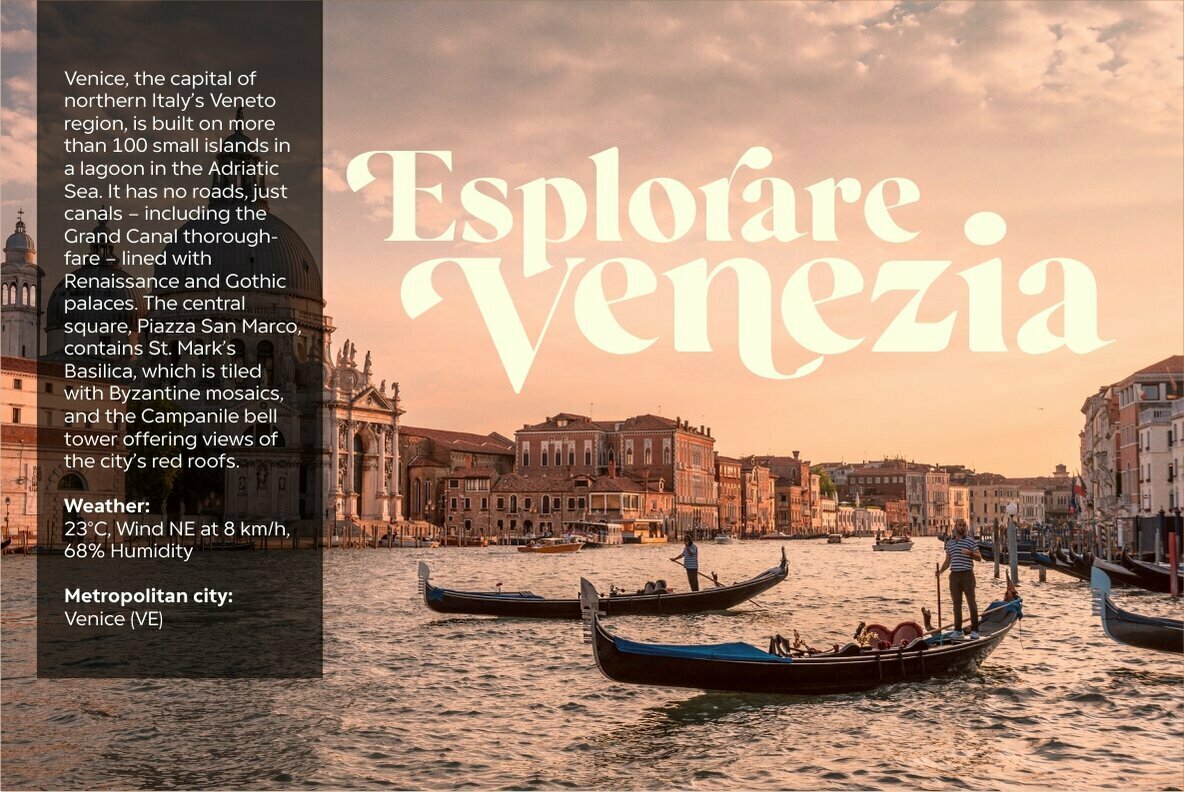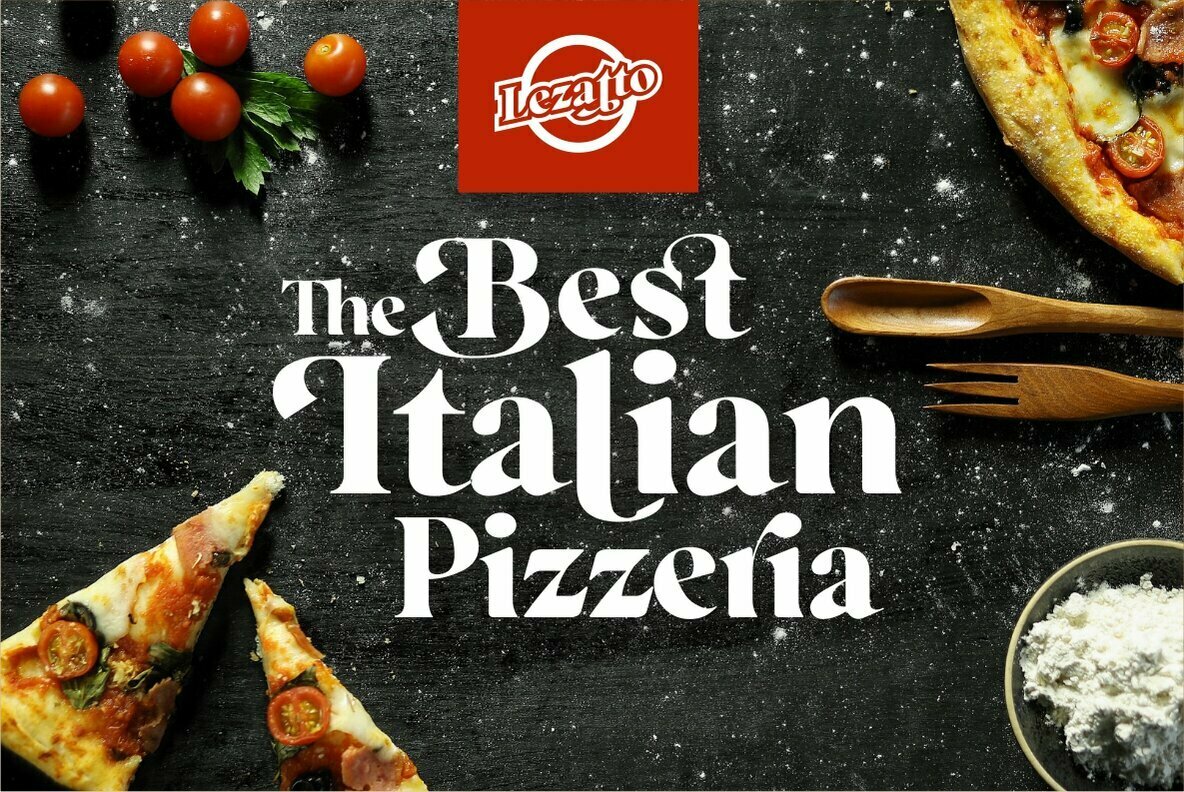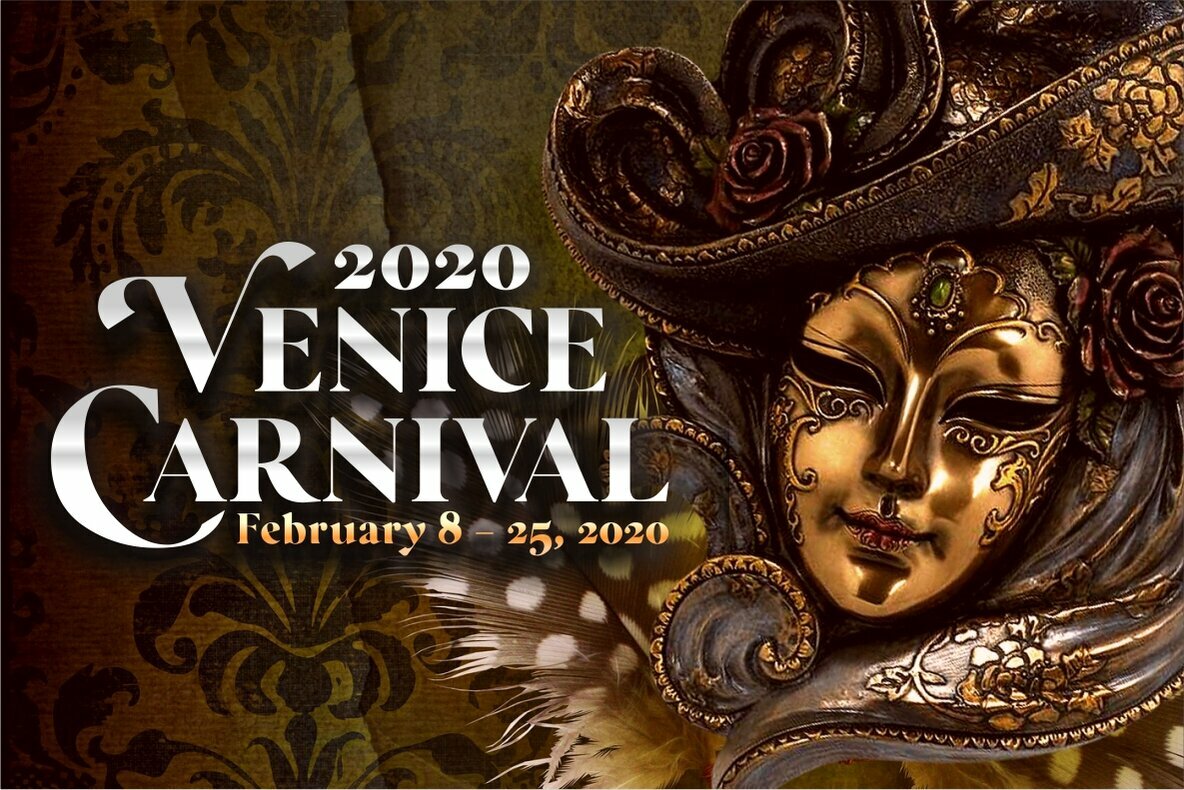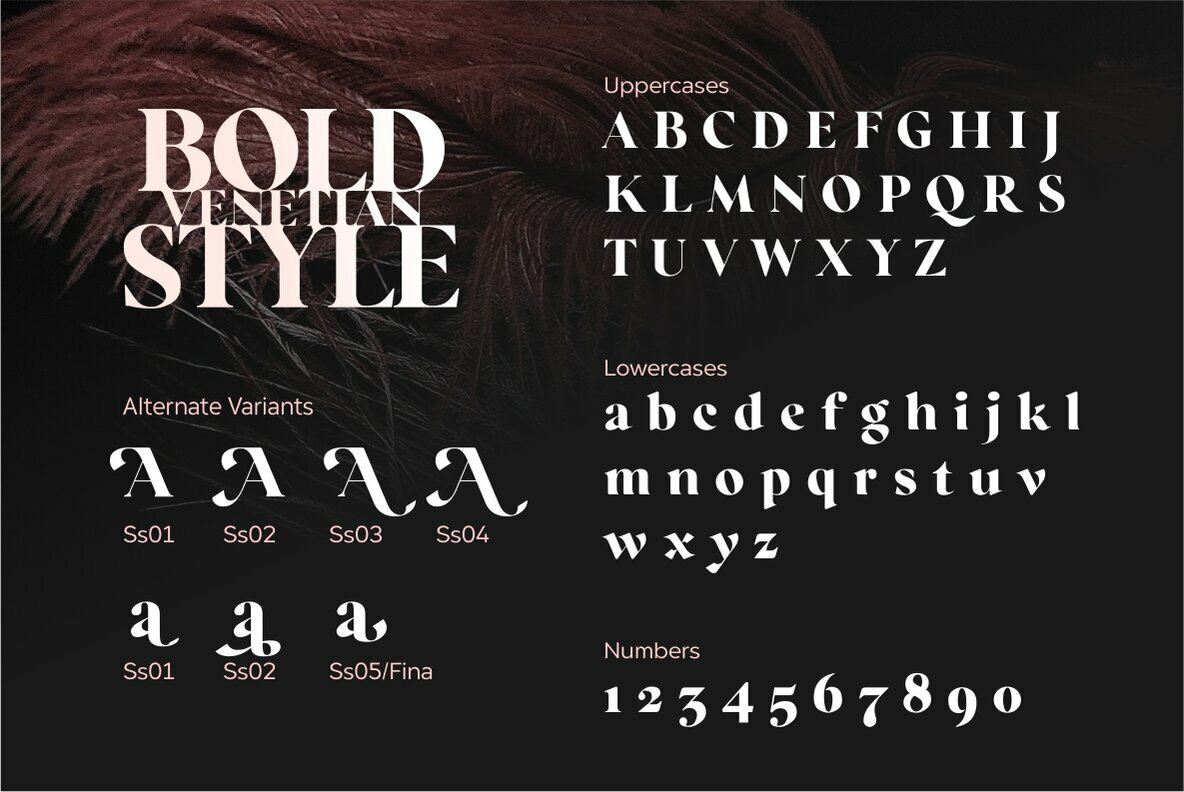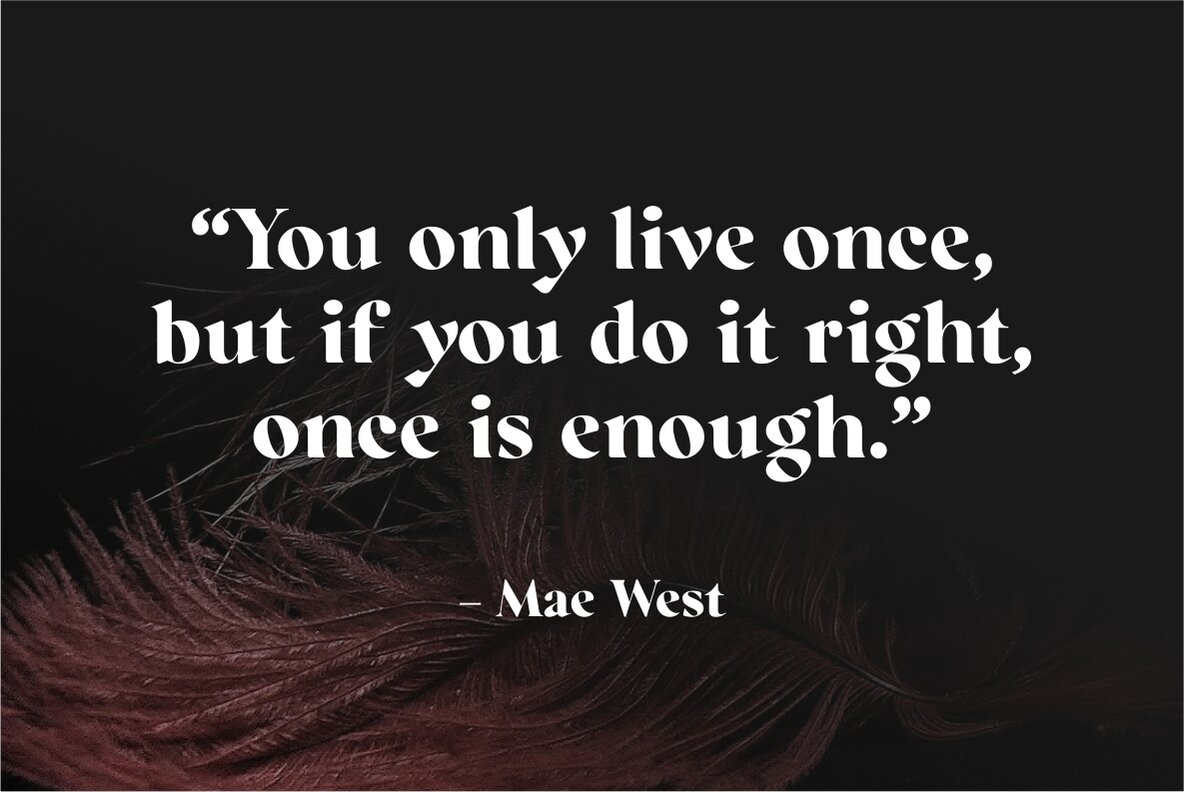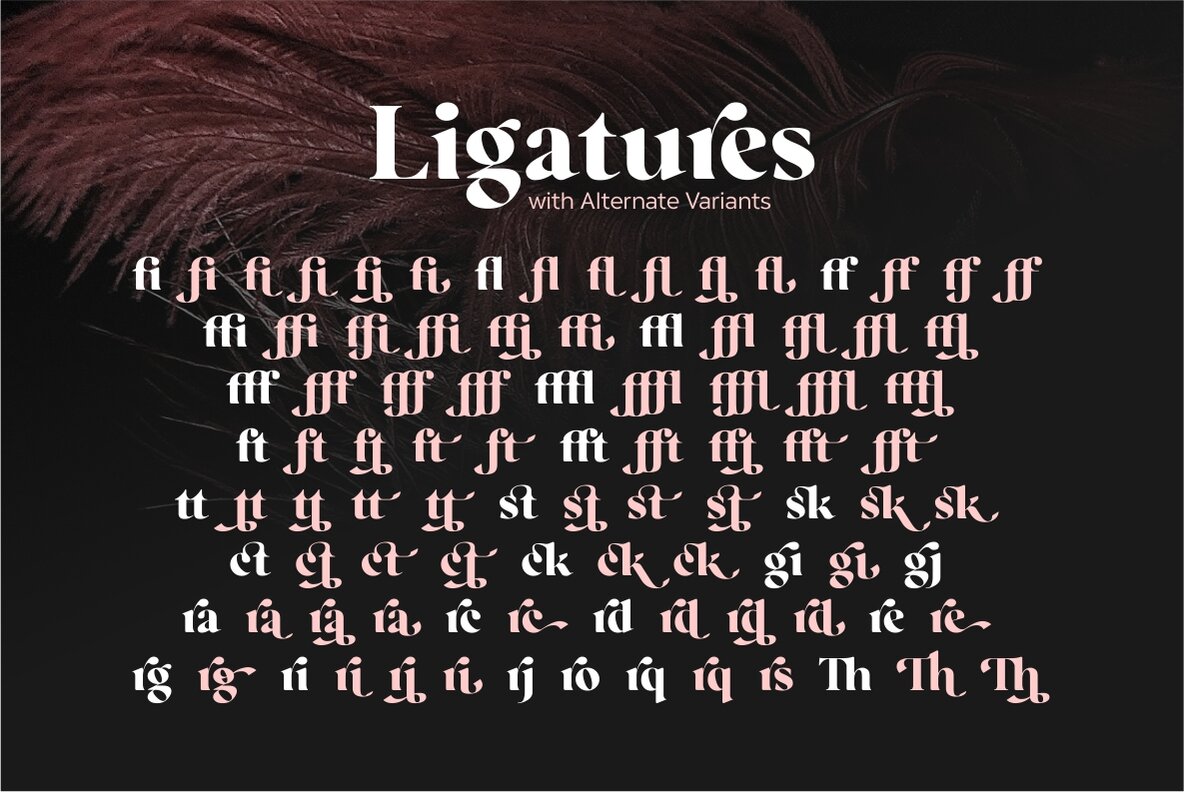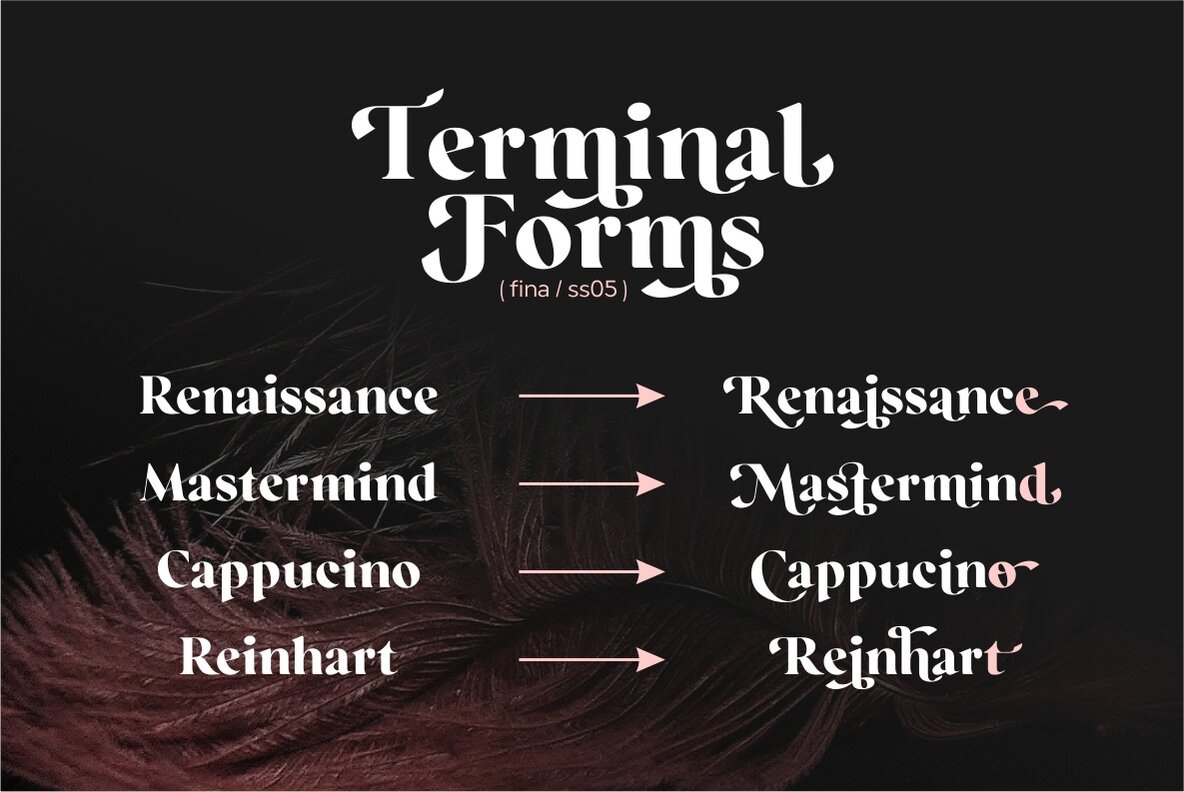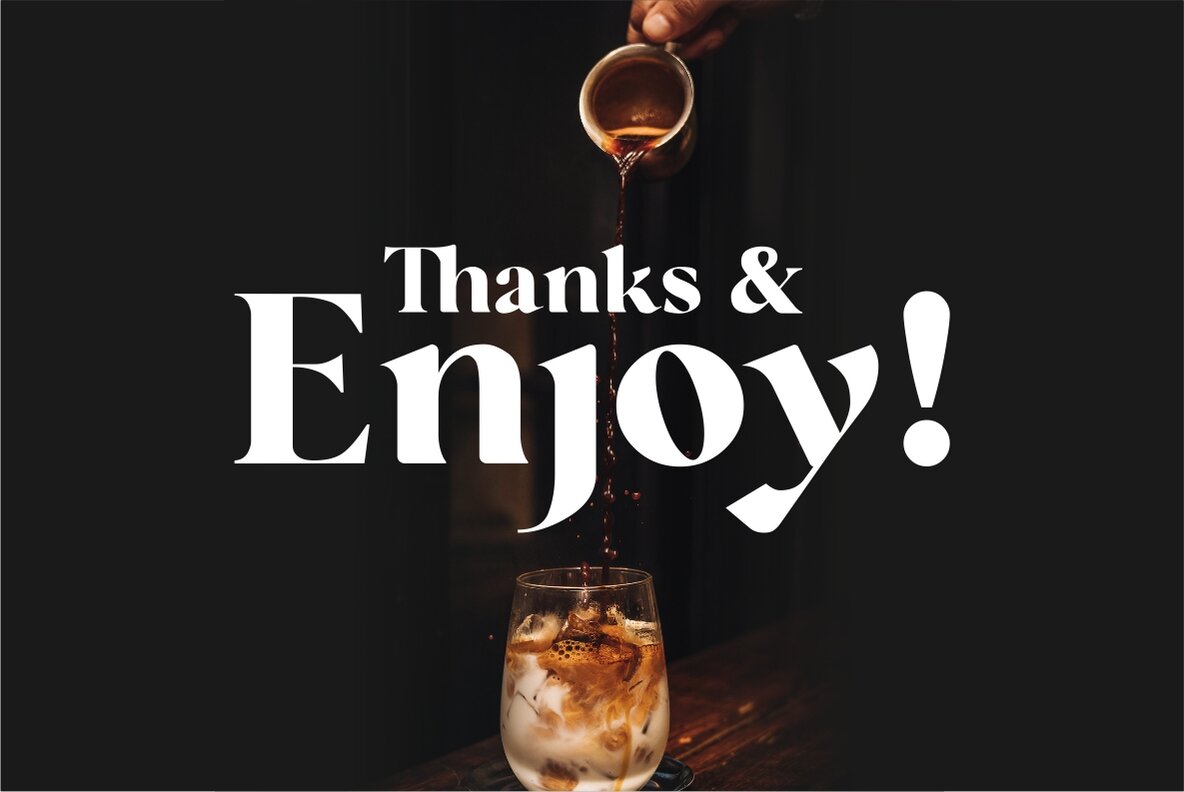
Regatto Font
Regatto Bold
Regatto brings a bold, high-contrast aesthetic, drawing inspiration from the classic Venetian style. Its striking design is well-suited for a range of applications, from headlines to poster art. This typeface enriches your creative projects not just with visual impact, but also with functionality, offering a diverse array of alternates and ligatures. For designers working in multilingual contexts, Regatto includes letters with diacritic accents, supporting a variety of non-English languages. While it does not include small caps, the typeface invites creativity, allowing for customization by adjusting the size of initial letters in your compositions.Regatto: High-Contrast Typeface Inspired by Venetian Elegance